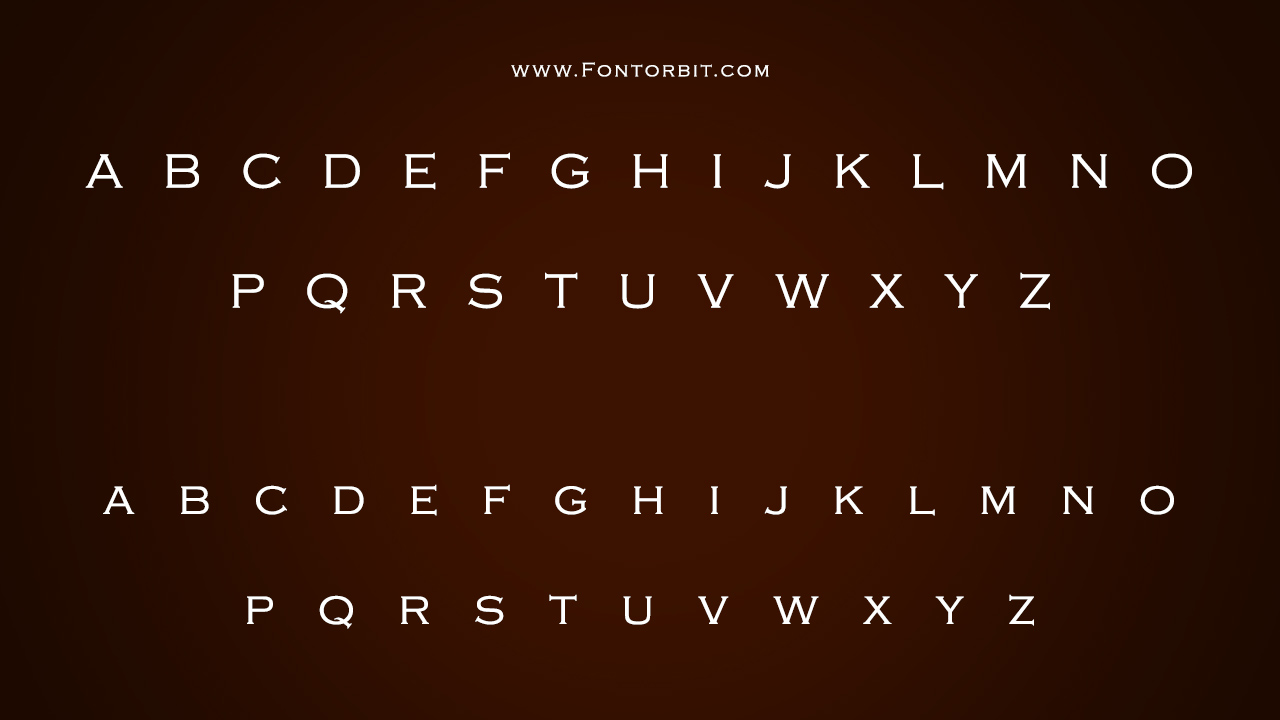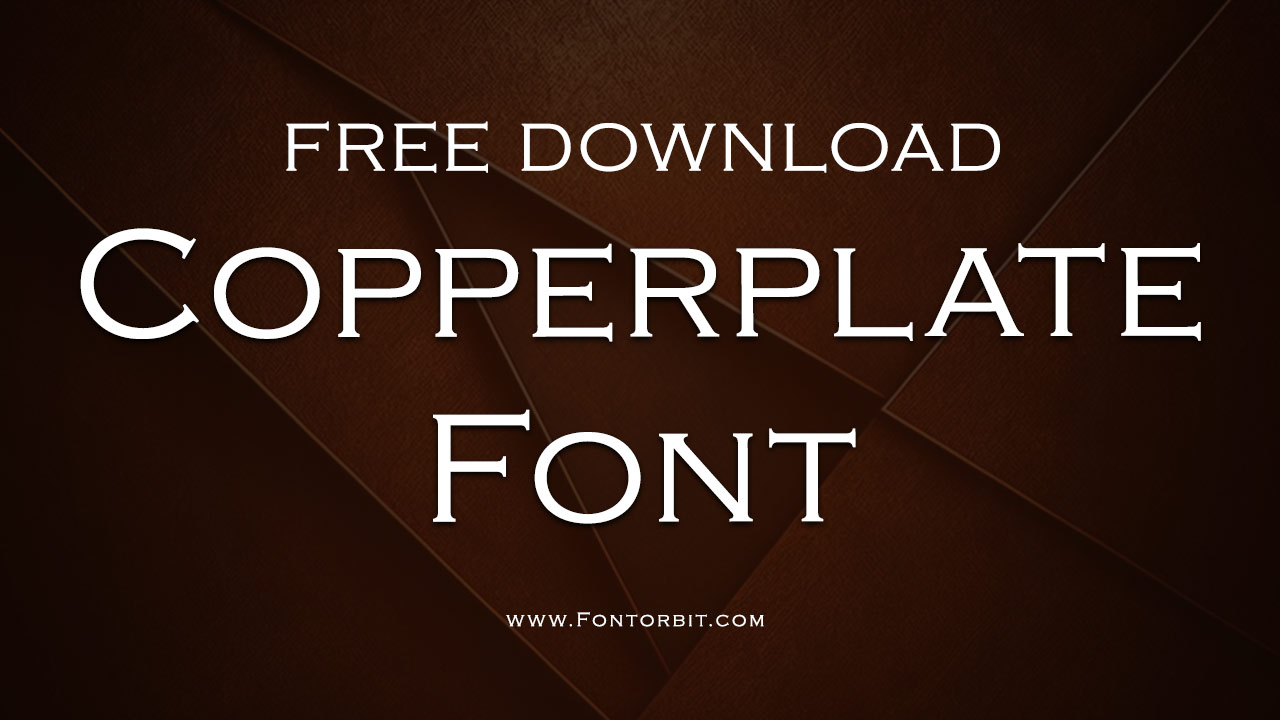
The Copperplate Font is a classic typeface originally designed by Frederic W. Goudy and produced by American Type Founders (ATF) starting in 1901. It is renowned for its distinctive blend of Gothic influences and subtle, glyphic serifs that give it a unique character.
Copperplate Font Family
The Copperplate Font is available for personal use and is designed by OPTIFONT Designer Elnur Mehdi. This font captures the essence of early 20th-century type design, featuring a clean and crisp appearance that stands out in both letterpress and offset printing.
The typeface’s wide horizontal axis and detailed glyphs make it an excellent choice for a variety of design applications.
The Copperplate Font is ideal for designs that blend classic elegance and modern clarity. Its refined serif details and distinctive style make it perfect for formal documents, high-end branding, and sophisticated advertising.
With its historical roots and elegant design, the Copperplate Font offers a distinctive and sophisticated option for personal projects. Free for personal use, it provides a touch of classic typography to your branding, invitations, and more, reflecting a blend of old-world charm and modern refinement.
1.What Is The Copperplate Font?
The Copperplate Font is a classic serif typeface designed by Frederic W. Goudy, featuring unique glyphic serifs and a crisp, clean appearance suitable for formal and sophisticated designs.
2.Who Designed The Copperplate Font?
Frederic W. Goudy designed the Copperplate Font.
3.What Are The Key Features Of The Copperplate Font?
The font features a blend of Gothic and serif influences with small glyphic serifs, a wide horizontal axis, and a clean, crisp design ideal for formal and high-impact typography.
4.How To Use Copperplate Font In Branding?
Use it to create elegant logos, formal invitations, certificates, and sophisticated advertisements to convey a sense of tradition and refinement.
5.What Are The Alternatives To The Copperplate Font?
Similar fonts include Trajan Pro, Garamond, and Bodoni, which offer classic serif styles with a refined and elegant appearance.